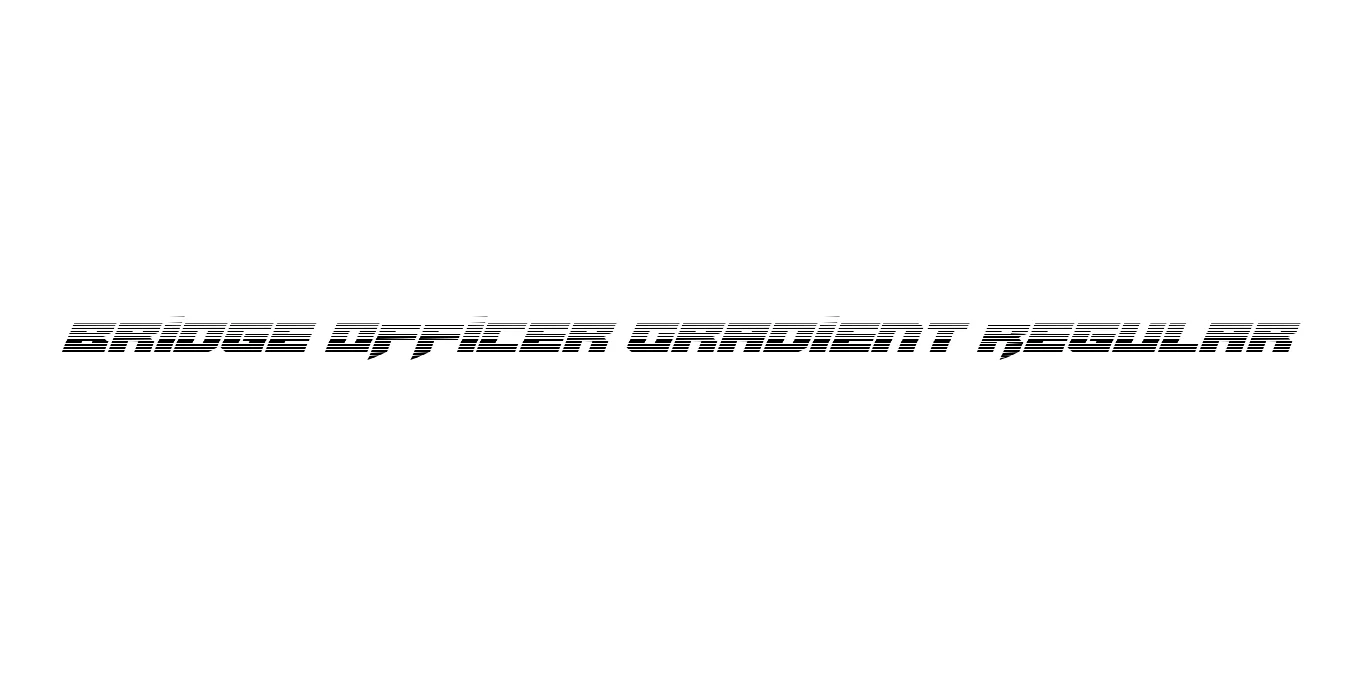
Bridge OFFicer Gradient Regular
Designed by Iconian Fonts
| Category | Display / Techno |
| Similar Fonts | Ethnocentric, Michroma, Bank Gothic |
Bridge Officer Gradient Regular is a distinctive display typeface designed by Iconian Fonts. It belongs to the broader Bridge Officer family, known for its bold, futuristic, and geometric construction. The Gradient variant incorporates a unique visual horizontal striation effect that evokes a sense of high-tech machinery, sci-fi interfaces, and military insignia. This font is particularly effective for large-scale headings where its intricate detailing and wide letterforms can be fully appreciated.
Since its release, this font has become a favorite among graphic designers working on video game interfaces, movie posters, and branding for technology-driven companies. Its sturdy architecture provides a sense of authority and stability, making it ideal for titles related to aerospace, robotics, or tactical simulations. The pre-applied gradient effect adds a layer of depth that simplifies the design process, providing a polished, textured look suitable for both digital displays and printed promotional materials.
Bridge OFFicer Gradient Regular Best Uses
Perfect for tech or gaming company branding that requires a bold, modern look.
Ideal for HUD displays, title screens, and user interface elements.
Great for science fiction or action-packed film titles and credit blocks.
Eye-catching headers for tech-focused content and modern digital banners.